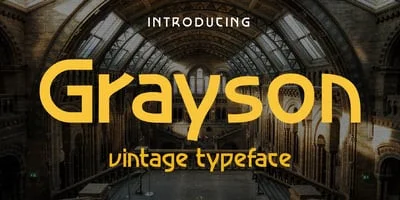
Grayson 1940s Art Deco Typeface
Grayson 1940s Art Deco Typeface Font
Grayson 1940s Art Deco Typeface Font presents designers with a sophisticated typeface that embodies golden age glamour and Art Deco sophistication with period authenticity. However, for commercial use, you must purchase this font. You can download it for free for testing purposes only.
Grayson 1940s Art Deco Typeface Font excels in vintage design applications including luxury hotel branding, classic cocktail bars, vintage fashion labels, Art Deco architecture presentations, 1940s-themed events, heritage luxury brands, vintage jewelry packaging, classic automobile advertisements, period film productions, and glamorous lifestyle campaigns. This elegant typeface brings authentic 1940s sophistication to period-inspired design projects.
What makes Grayson 1940s Art Deco Typeface Font truly exciting is its masterful recreation of 1940s design elegance with geometric letterforms that capture the optimism and luxury of the golden age through precise Art Deco construction. The font features streamlined characters with period proportions and sophisticated glamour that convey prosperity, elegance, and the confident style of America's golden decade. Its Art Deco personality and vintage sophistication make it ideal for brands celebrating classic American style, luxury heritage, and audiences who appreciate vintage glamour, Art Deco architecture, and the timeless elegance that defined 1940s design aesthetics.
The Grayson 1940s Art Deco Typeface Font family typically includes multiple weights with potential decorative elements and period flourishes that enhance its Art Deco character. These glamorous options provide designers with complete vintage styling while maintaining the font's distinctive period elegance and sophisticated presentation across various luxury applications and heritage contexts.
Whether you're developing vintage luxury branding, creating Art Deco campaigns, or designing period marketing materials, Grayson 1940s Art Deco Typeface Font delivers the period authority and Art Deco sophistication that vintage luxury projects require. Its exceptional glamour and historical appeal make it invaluable for designers working with luxury brands, heritage hotels, and vintage-focused organizations requiring typography that honors 1940s design tradition, celebrates Art Deco elegance, and captures the optimistic spirit of America's golden age that continues to inspire contemporary luxury design.